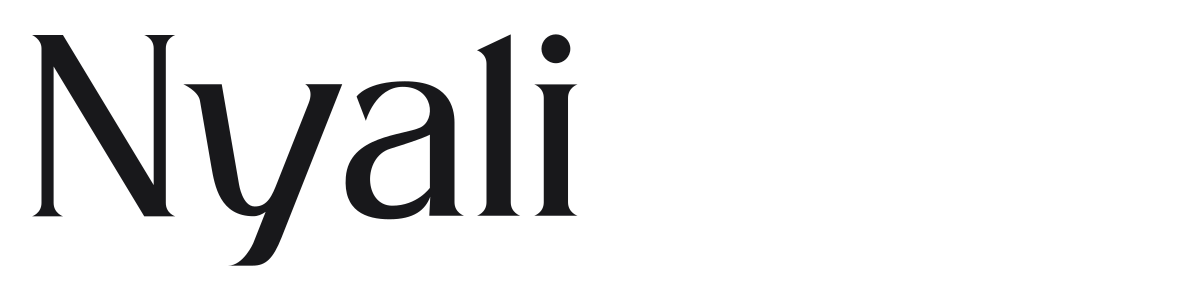
Nyali
by Mocha Frappuccino
Nyali is a contemporary high-contrast serif with graceful stroke modulation and a clean editorial presence. The airy spacing and refined wedge serifs give it a modern luxury feel that sits naturally in fashion, beauty, and lifestyle contexts. It carries personality without fuss.